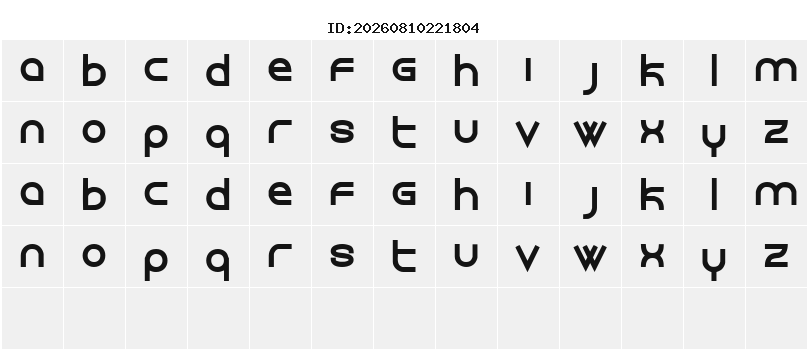
roundabout Preview
• Font Name: roundabout
• Full Font Name: roundabout
• PostScript Name: roundabout
About roundabout.ttf
roundabout.ttf is a modern, elegant sans-serif font designed for ultimate readability and visual harmony. Perfect for branding, headlines, web design, and print materials.